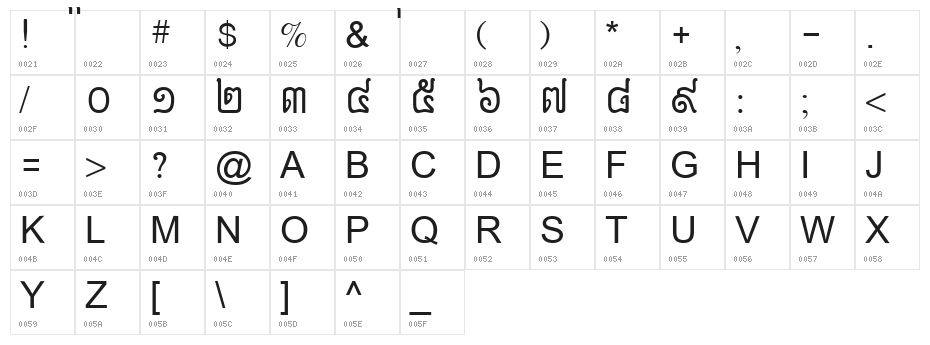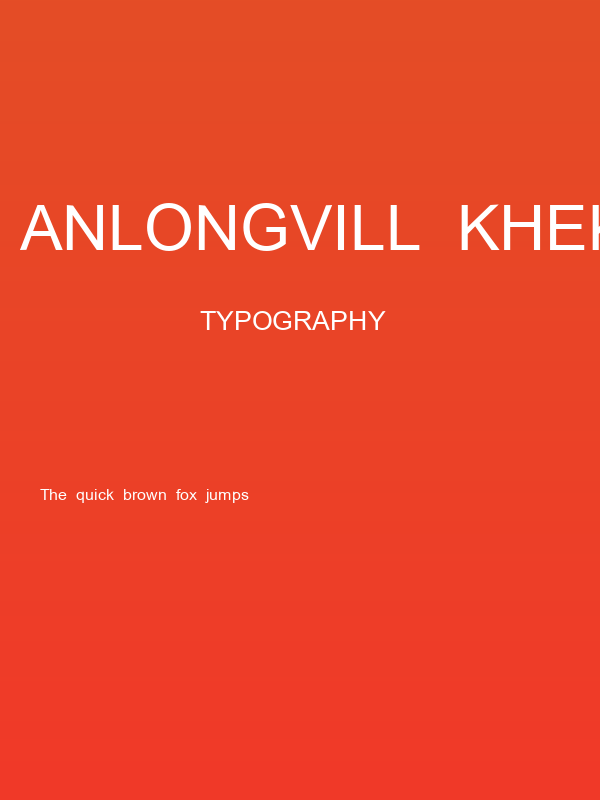
Anlongvill Khek Font
Anlongvill Khek Description
This font features a clean and modern sans-serif style with uniform stroke widths, giving it a sleek and professional appearance. The characters are well-proportioned, with a slightly rounded finish that adds a touch of softness to the overall design. The uppercase letters are bold and assertive, while the lowercase letters maintain a consistent flow, making it highly readable. The numerals and special characters are designed to match the overall aesthetic, ensuring a cohesive look across all text elements. This font is versatile and suitable for a wide range of applications, from digital interfaces to print media.
Proposed ProjectsIdeal for corporate branding, website design, user interfaces, and print media.